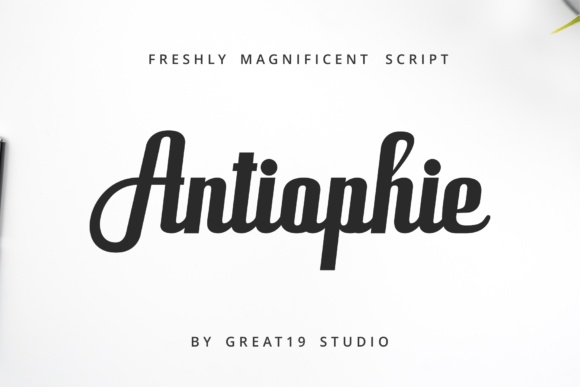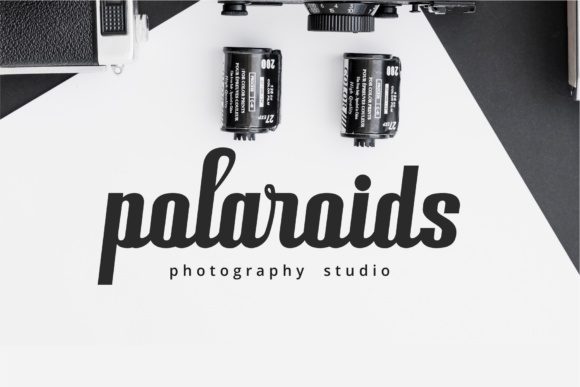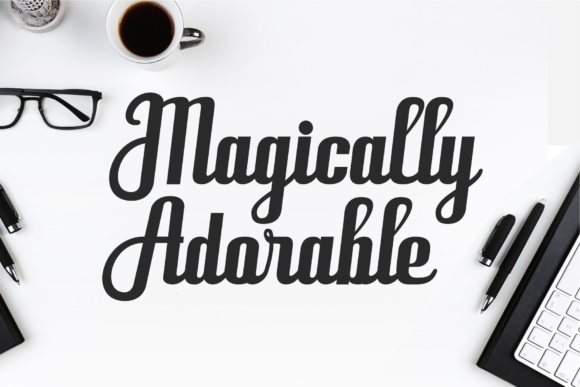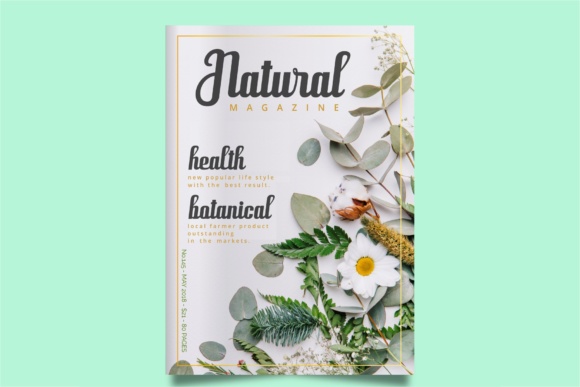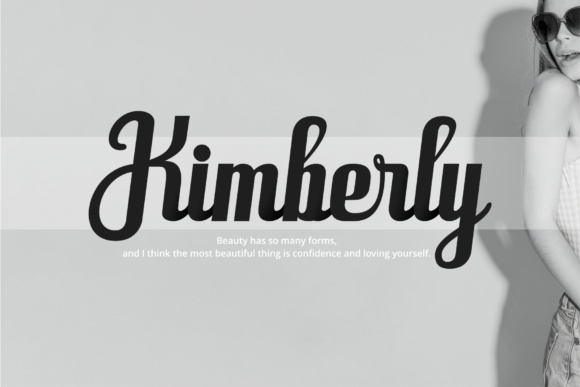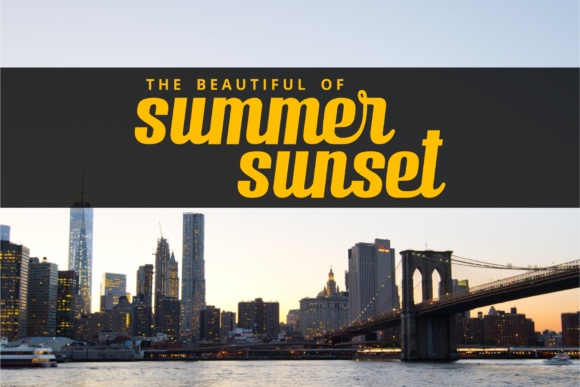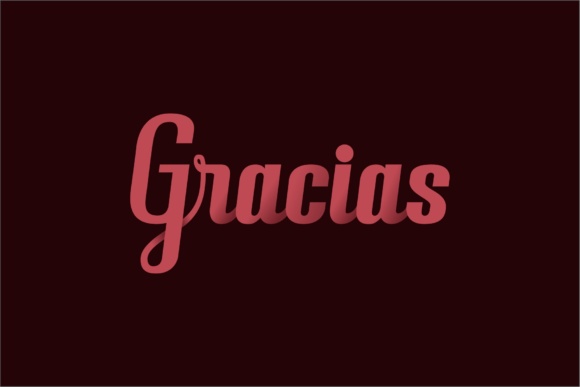
Antiophie Script Font
Antiophie is a bold, elegant and outstanding typeface. Antiophie was created to look strong and fabulous on its own.
Antiophie script is perfect for Titles, Magazines, Logotypes, Packaging, Branding, Book Covers, Headers, Posters and other creative designs that needs an eye catching typeface.